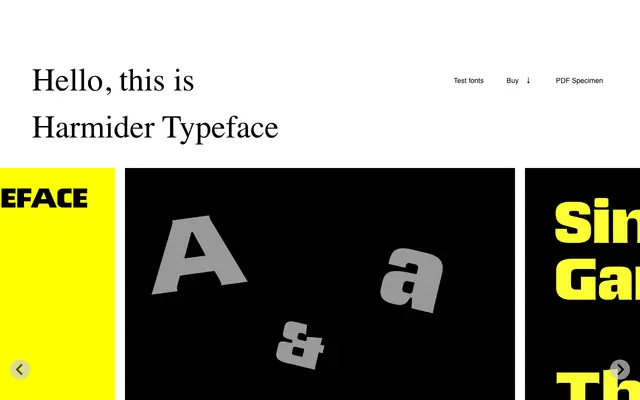
Harmider
Laïc · Maciej Połczyński
A blocky headline typeface with restrained serifs, designed by Maciej Połczyński with full Polish character support.
Built for headline use, Harmider pairs a heavy, blocky structure with what the designer calls 'shy serifs', giving it an idiosyncratic character that sits between a slab and a display serif. The character set covers the full Polish alphabet including diacritics such as ą, ć, ę, ł, ń, ó, ś, ź and ż, alongside oldstyle figures. The name is taken from a Polish word meaning a kind of cacophonous noise, suggesting the type is designed to command attention rather than recede.
Described explicitly as a headline, blocky typeface with shy serifs, placing it firmly in the display category with a quirky slab-adjacent character rather than a text serif.